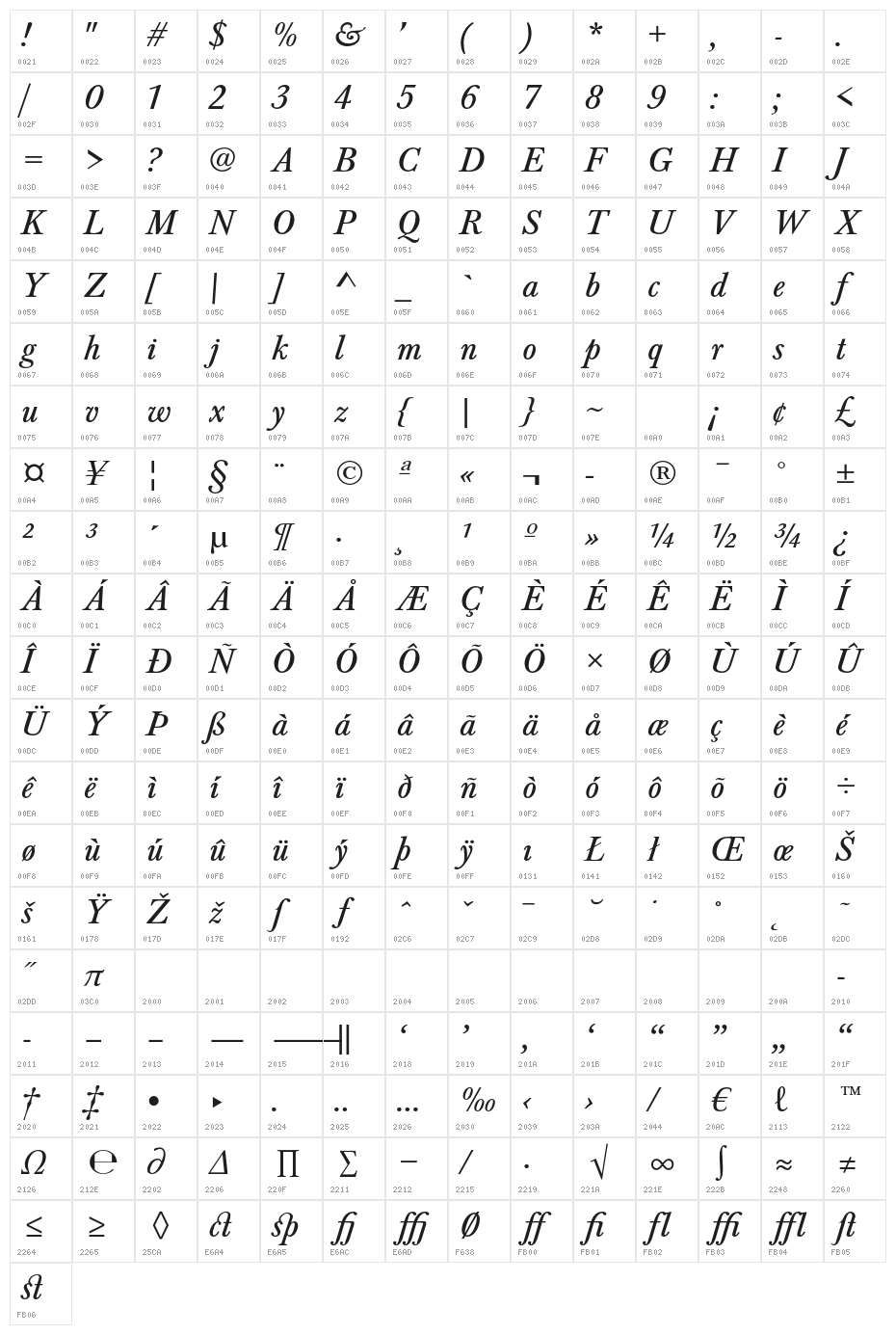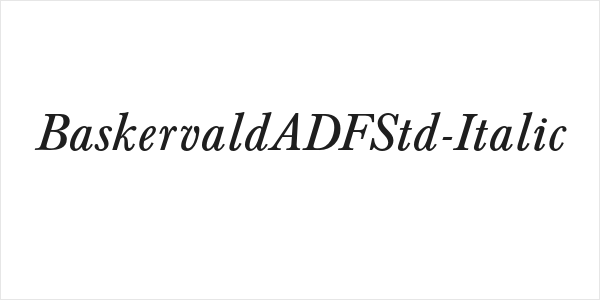
BaskervaldADFStd-Italic Font
BaskervaldADFStd-Italic Description
This elegant serif typeface features a classic and sophisticated design with a distinct italic style. The letters are gracefully slanted, adding a sense of movement and fluidity. The strokes are moderately thick, providing a balanced contrast that enhances readability while maintaining an air of refinement. The serifs are well-defined, contributing to the traditional aesthetic of the font. The overall appearance is timeless, making it suitable for formal and professional applications. The numerals and special characters are crafted with the same attention to detail, ensuring consistency across all glyphs.
| Proposed Projects | Ideal for book covers, formal invitations, editorial design, and branding projects that require a touch of elegance. |